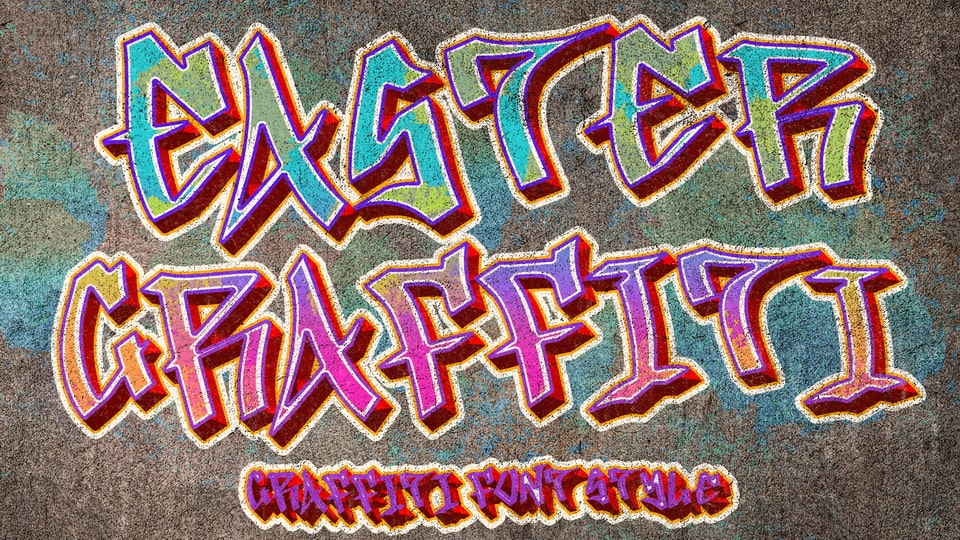
Download Easter Graffiti font, a unique and elegant graffiti typeface. This font is equipped with uppercase, lowercase, numeral, punctuations and multilingual support.